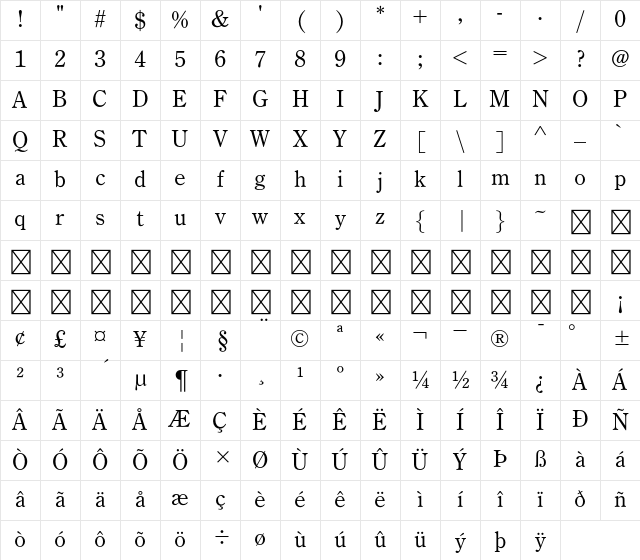
A P-OTF Shuei Mincho Pr6N L
Designer: Dai Nippon Printing Co., Ltd.
Design Context for A P-OTF Shuei Mincho Pr6N
A P-OTF Shuei Mincho Pr6N is a composed and adaptable typeface that performs quietly and consistently across a wide range of design contexts.